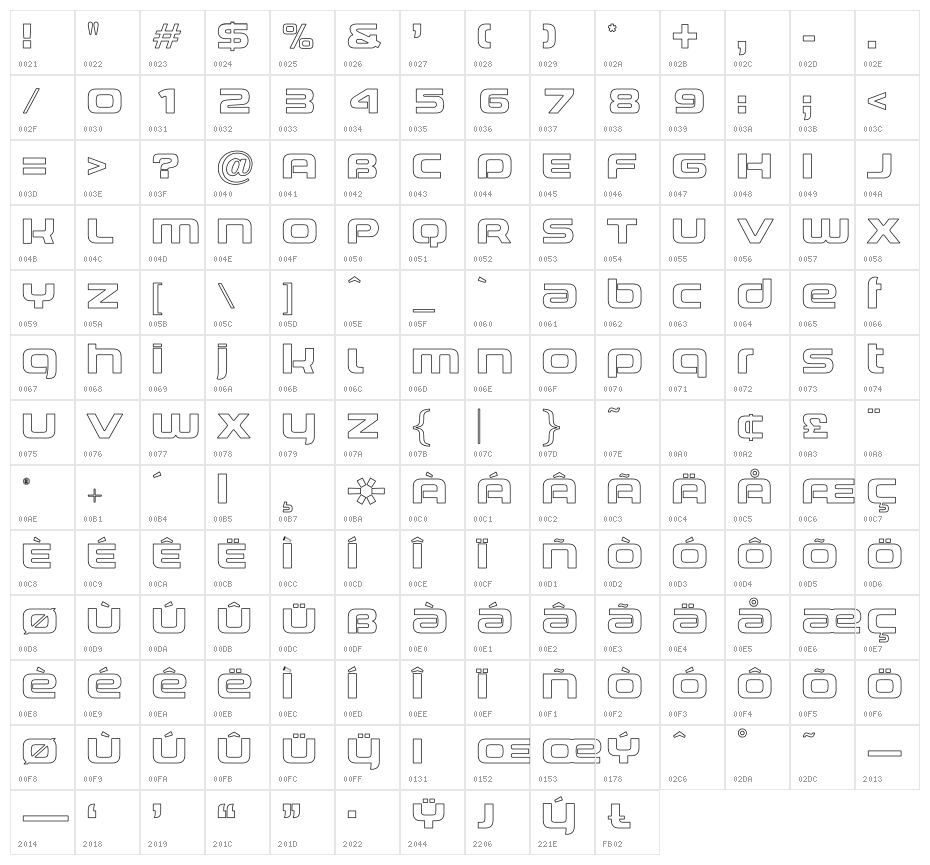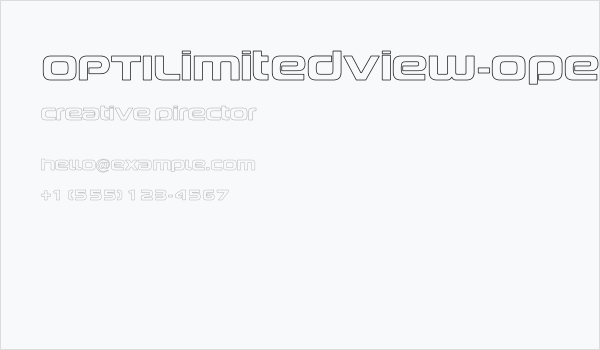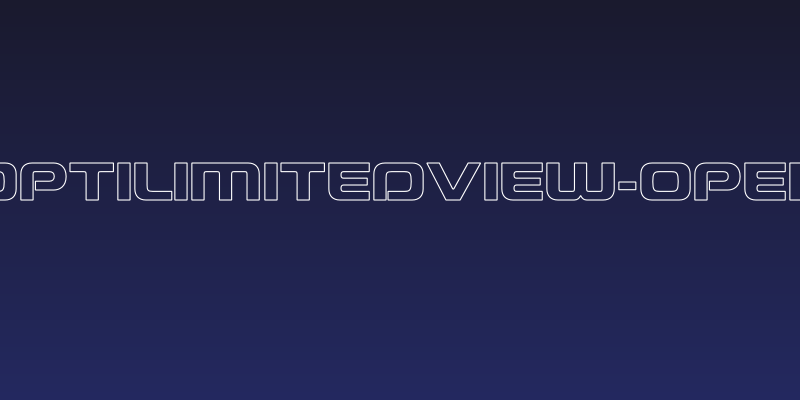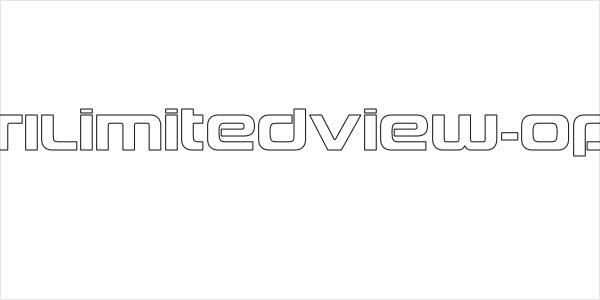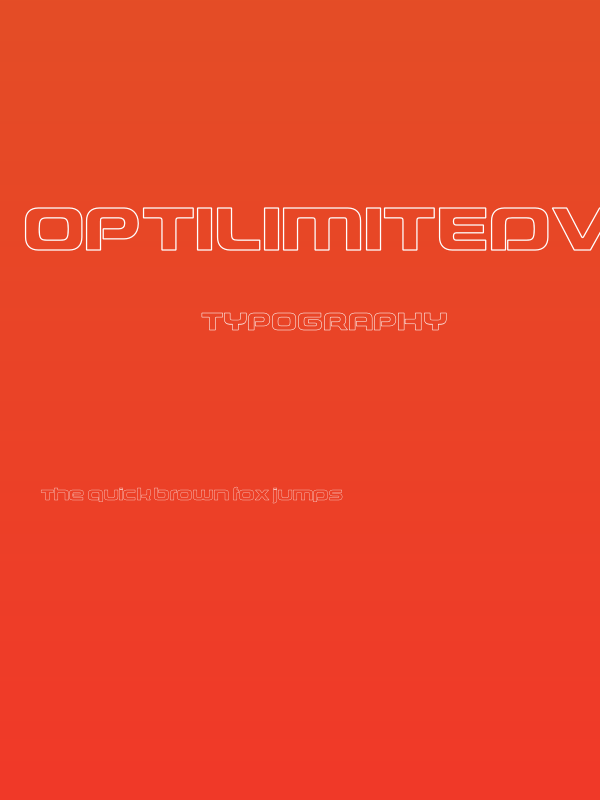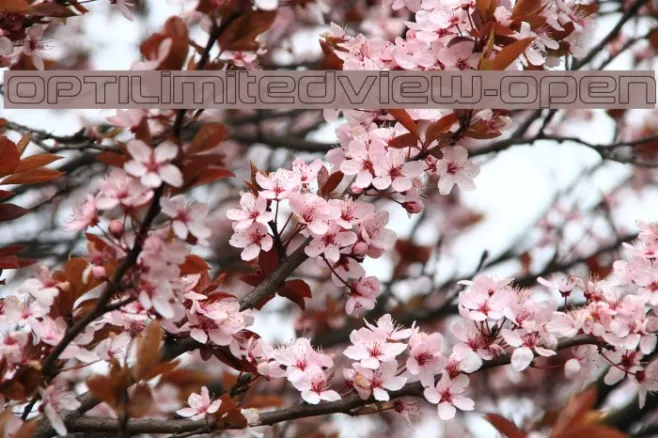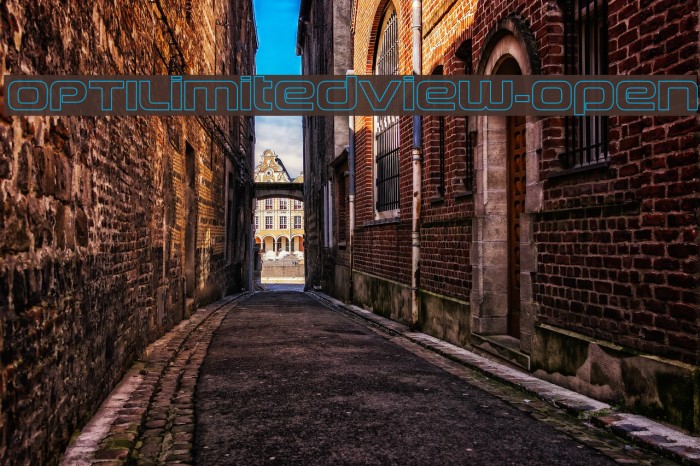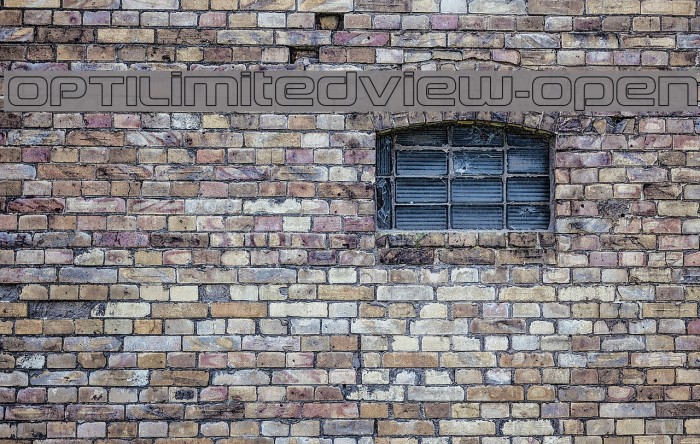
OPTILimitedView-Open Font
OPTILimitedView-Open Description
This font features a futuristic and geometric design with a hollow, outlined structure. The characters are constructed with clean, straight lines and rounded corners, creating a modern and technical appearance. The uppercase and lowercase letters maintain a consistent style, with the uppercase being slightly more angular. The numerals and special characters follow the same design principles, ensuring uniformity across the font. The open, airy feel of the characters makes it suitable for digital and tech-themed projects.
| Proposed Projects | Ideal for tech branding, digital interfaces, sci-fi posters, and modern graphic design. |